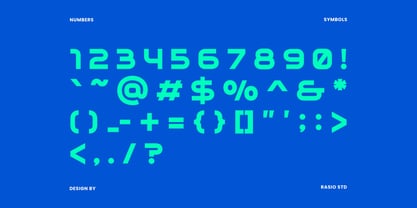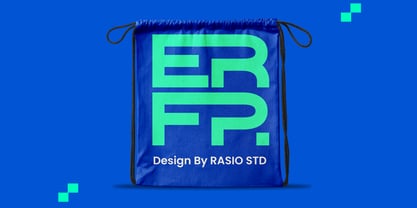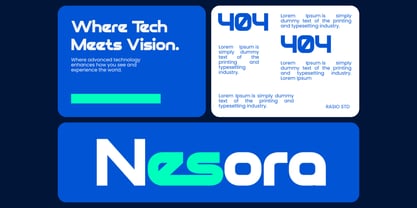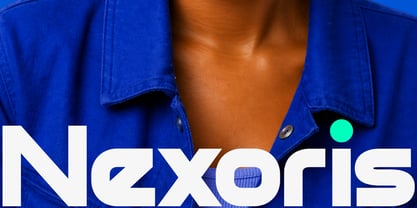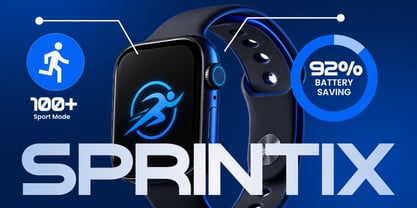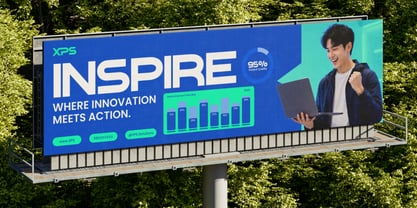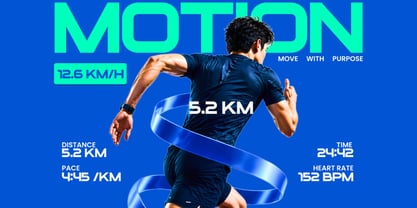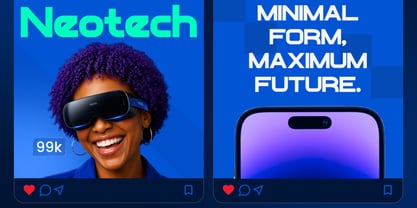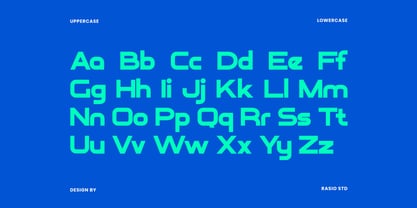
Nexoris
por Rasio Studio
La familia tipográfica Nexoris fue diseñada por Fajar Indra y publicada por Rasio Studio. Nexoris contiene 1 estilos. Más información sobre esta familia
Nexoris is a modern tech-inspired sans serif font with bold geometric construction and sharp digital aesthetics. It features uppercase, lowercase, numerals, and punctuation designed with clean edges, futuristic proportions, and strong visual rhythm. The typeface emphasizes clarity and innovation, making it highly suitable for contemporary digital environments and high-impact branding, and futuristic creative concepts where a bold, clean, and highly legible typographic presence enhances both functionality and visual impact.
Relevance and Use Cases is perfect for technology branding, startup identity systems, SaaS platforms, mobile applications, UI/UX interfaces, dashboards, web design, and digital products that require clarity and a forward-thinking visual tone, extending to advertising campaigns, social media content, product launches, modern presentations, pitch decks, corporate communication, innovation-focused visuals, fintech and AI projects, gaming interfaces.
Diseñadores: Fajar Indra
Fundición: Rasio Studio